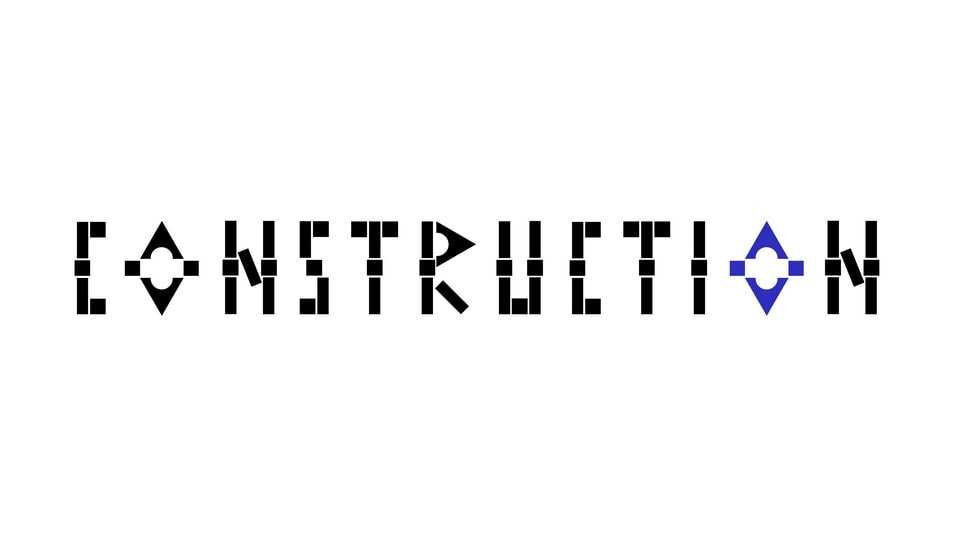
Download Construction font, a modular display typeface, built on the foundation of simple and complex geometric forms. Strict, straightforward and rude – the structure towers above us, a couple more millimeters and it will collapse.
Designer: Maria Kolchenogova